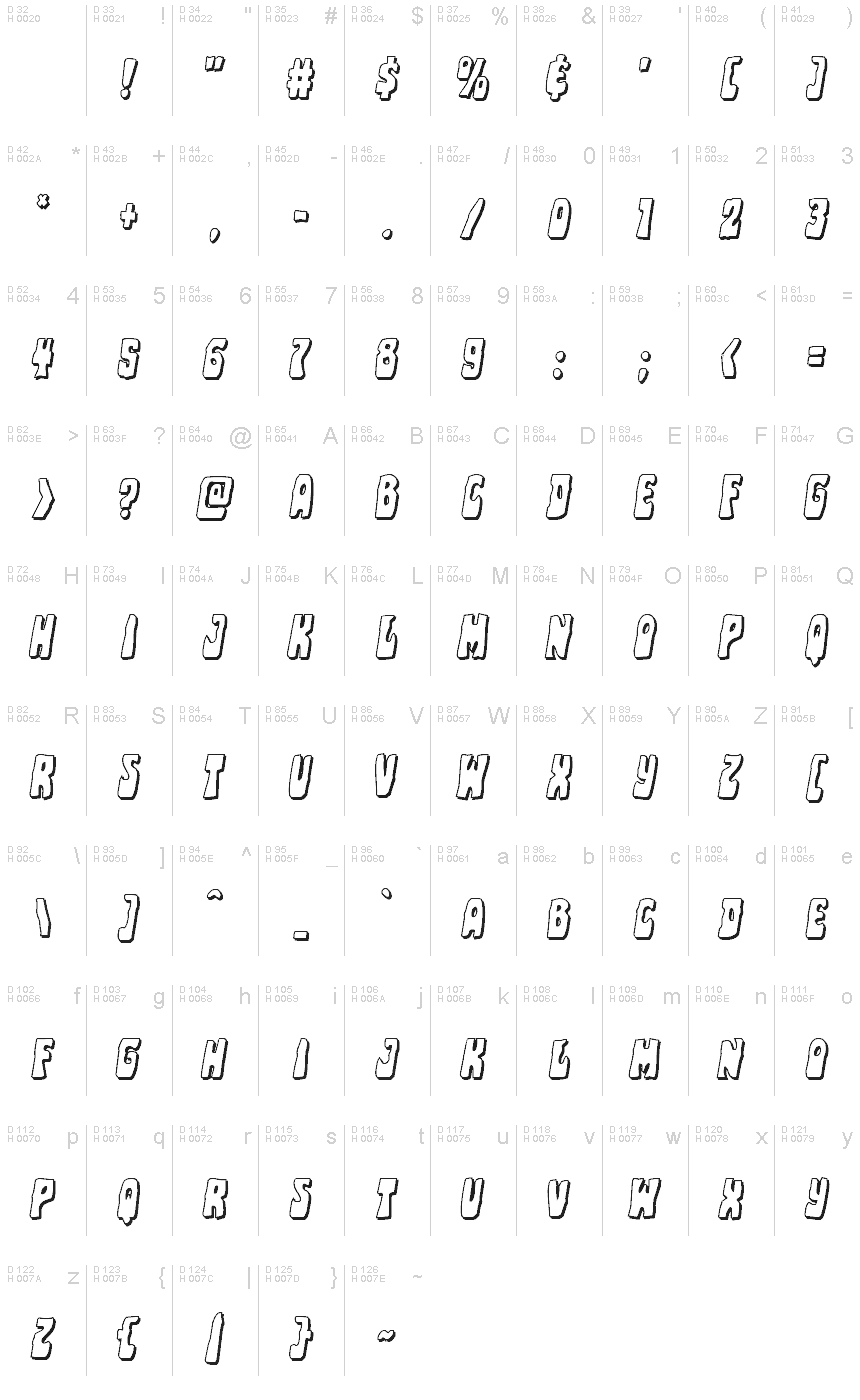
Pocket Monster Shadow Italic
Pocket Monster Shadow Italic - a font that commands attention with its bold, 3D lettering and an ominous, shadowy aesthetic. Designed by Daniel Zadorozny, this display font exudes an aura of mystery and danger, perfectly suited for horror-themed projects, heavy metal album covers, and gamer aesthetics.
The condensed width of the characters amplifies the sense of power and intensity, while the italic slant adds a sense of motion and dynamism. Pocket Monster Shadow Italic is a versatile choice for designers seeking to create impactful, eye-catching typographic compositions that evoke a palpable atmosphere of suspense and supernatural intrigue.
Its unique blend of bold forms and shadowy depth makes it a standout option for a wide range of applications, from movie posters to video game logos, where a memorable and captivating visual identity is paramount.